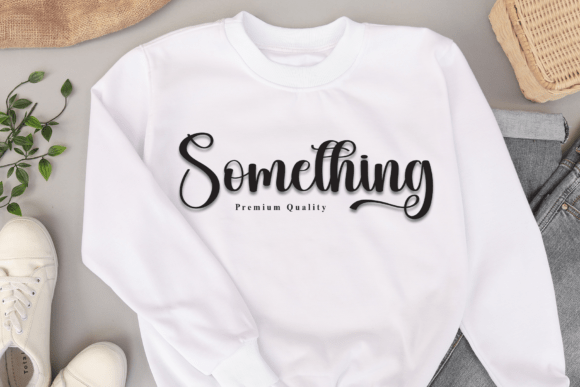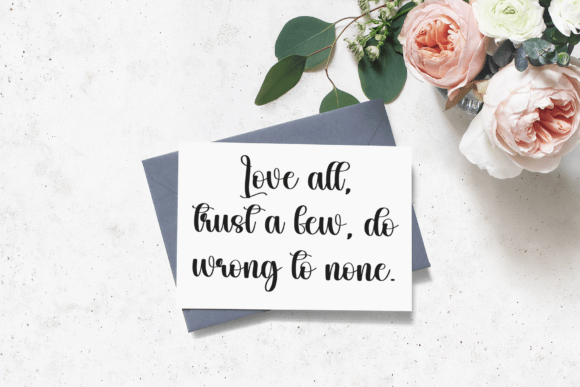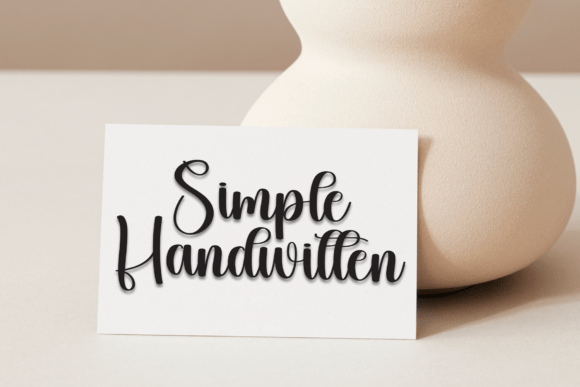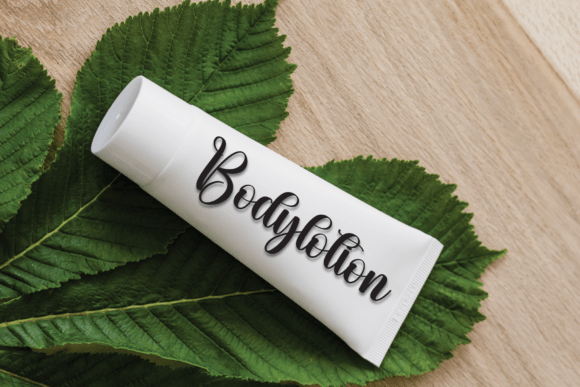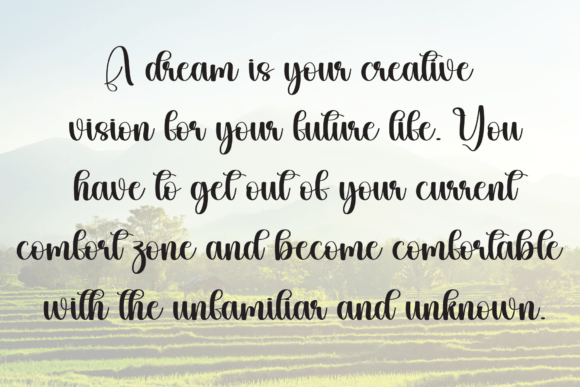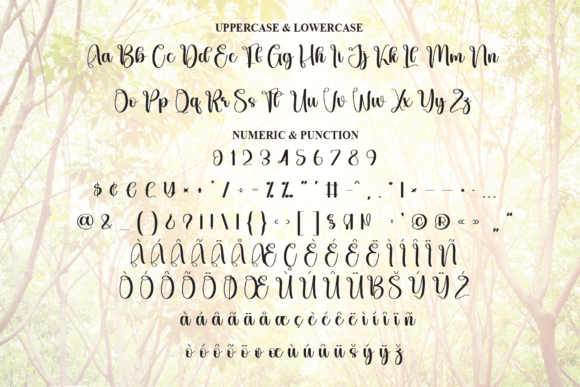
Introducing Bright Harmony Font: Elevate Your Designs with Elegant Handwriting
In the world of typography, few fonts manage to capture the essence of elegance and personality as effectively as the Bright Harmony Font. This stunning handwritten script font is meticulously designed to bring a touch of sophistication and warmth to your projects, making it an ideal choice for designers and crafters looking to add a personal touch to their work.
The Beauty of Handwritten Script
Bright Harmony Font is inspired by the fluidity and natural beauty of authentic handwriting. Its strokes are carefully crafted to mimic the gentle flow of handwritten script, complete with graceful curves and subtle variations in line width. This attention to detail gives the font a distinctly human feel, setting it apart from more rigid and uniform typefaces.
Whether you’re designing wedding invitations, branding materials, packaging, or any other project that requires a touch of elegance, Bright Harmony Font is an excellent choice. Its stylish, flowing design adds a level of sophistication that’s sure to impress, while its warm and personal feel helps to create an emotional connection with your audience.
Key Features of Bright Harmony Font
- Fluid, natural strokes: Bright Harmony Font features strokes that flow smoothly into one another, creating a sense of continuity and harmony.
- Graceful curves: The font’s curves are carefully crafted to add a touch of elegance and sophistication to your designs.
- Authentic handwriting feel: Bright Harmony Font is designed to mimic the look and feel of authentic handwriting, giving your projects a personal and relatable touch.
- Highly versatile: This font is suitable for a wide range of projects, from wedding invitations and branding materials to packaging and more.
Why Choose Bright Harmony Font?
In a world where digital designs can often feel cold and impersonal, Bright Harmony Font offers a refreshing alternative. Its unique blend of elegance and warmth makes it an excellent choice for designers and crafters looking to add a touch of personality to their work. Here are just a few reasons why you might choose Bright Harmony Font for your next project:
- Add a personal touch: With Bright Harmony Font, you can add a personal touch to your designs that sets them apart from more generic and impersonal typefaces.
- Create an emotional connection: The font’s warm and inviting feel helps to create an emotional connection with your audience, making your designs more relatable and engaging.
- Stand out from the crowd: Bright Harmony Font is a unique and distinctive typeface that’s sure to help your designs stand out in a crowded marketplace.
Tips for Using Bright Harmony Font
To get the most out of Bright Harmony Font, here are a few tips to keep in mind:
- Use it sparingly: While Bright Harmony Font is a beautiful typeface, it’s best used sparingly to avoid overwhelming your designs. Try using it for headings or titles, and pairing it with a simpler font for body text.
- Experiment with colors: The font’s elegant curves and flowing strokes look beautiful in a variety of colors. Experiment with different hues and combinations to find the one that works best for your project.
- Pair it with images: Bright Harmony Font pairs beautifully with images, particularly those with a natural or organic feel. Try pairing it with photographs or illustrations to create a cohesive and visually appealing design.
Bright Harmony Font is a stunning handwritten script font that’s perfect for designers and crafters looking to add a touch of elegance and personality to their projects. With its fluid, natural strokes and graceful curves, it mimics authentic handwriting, making it ideal for wedding invitations, branding, packaging, and more. Whether you’re looking to create a sophisticated and elegant design or simply want to add a personal touch to your work, Bright Harmony Font is an excellent choice.